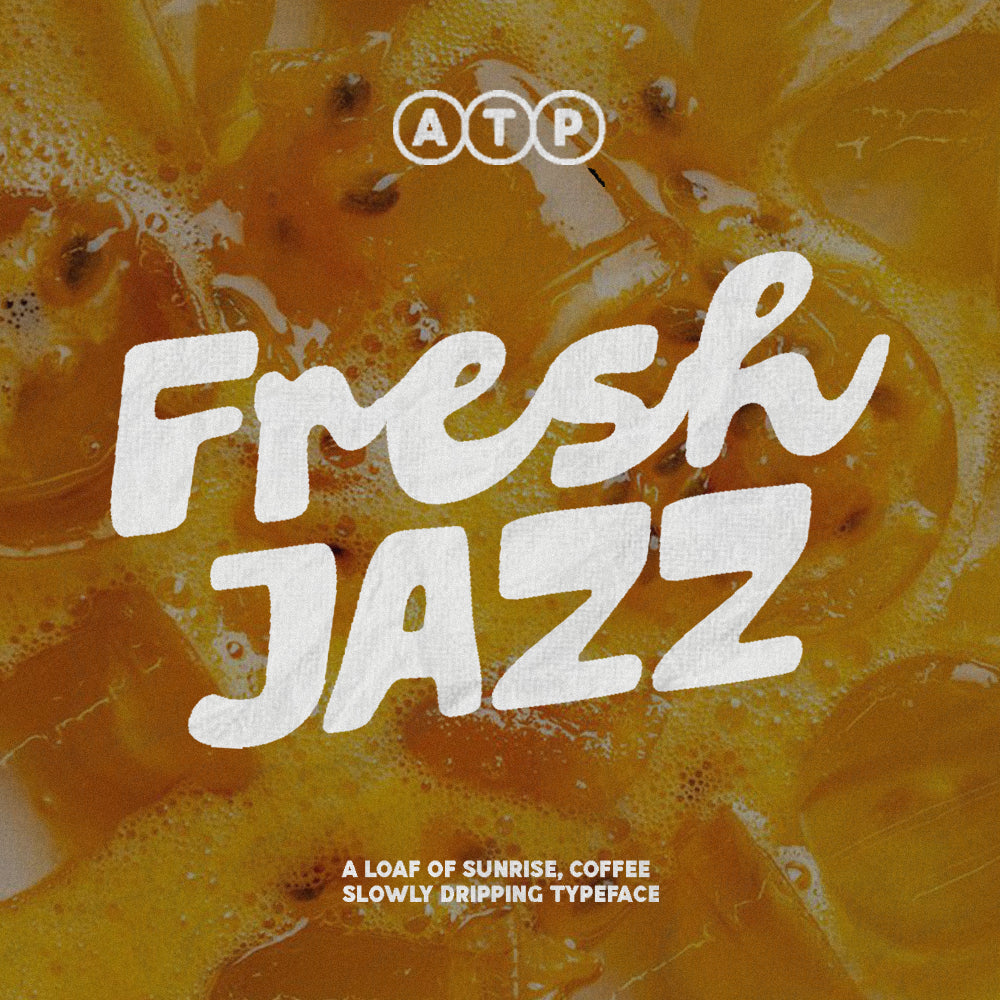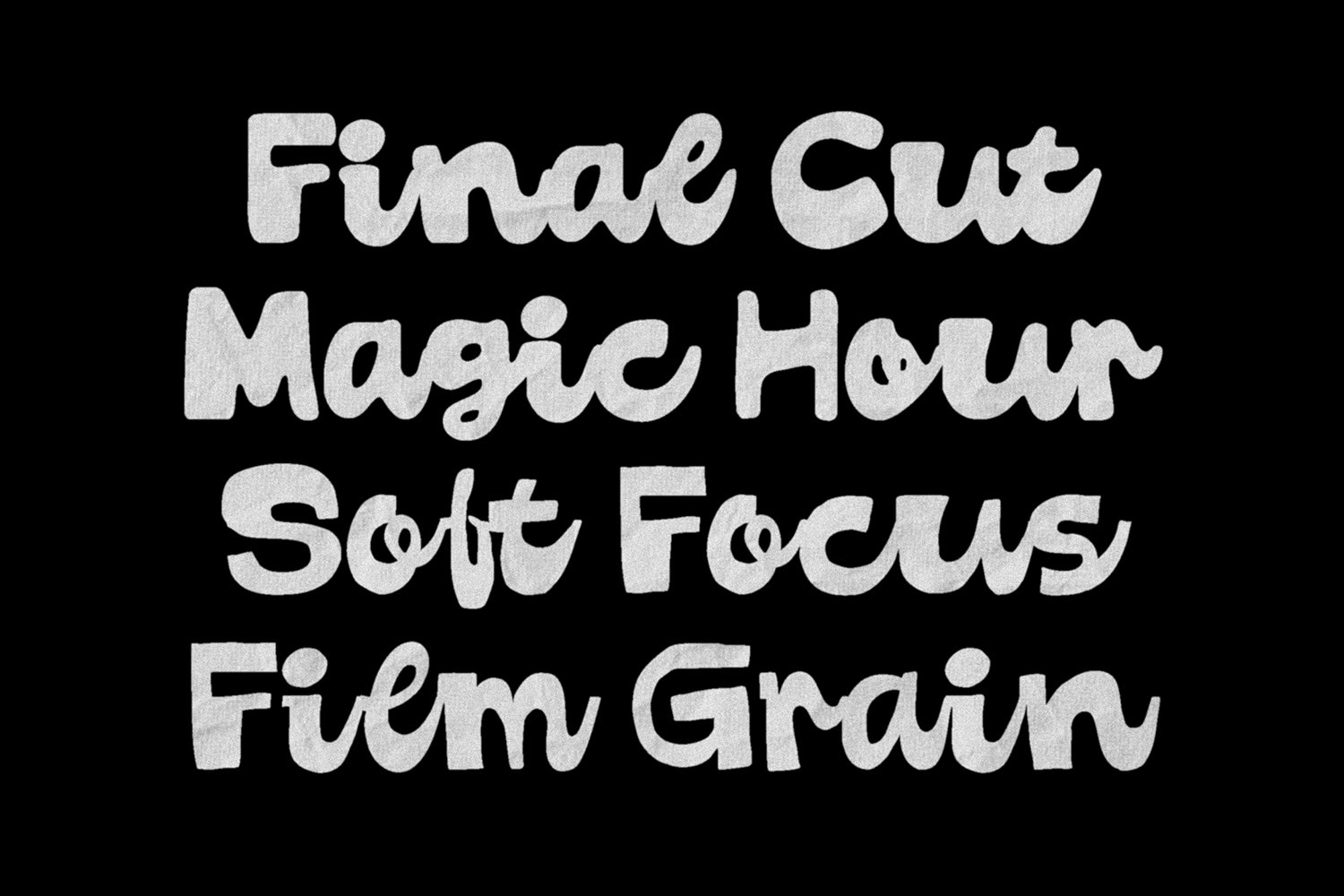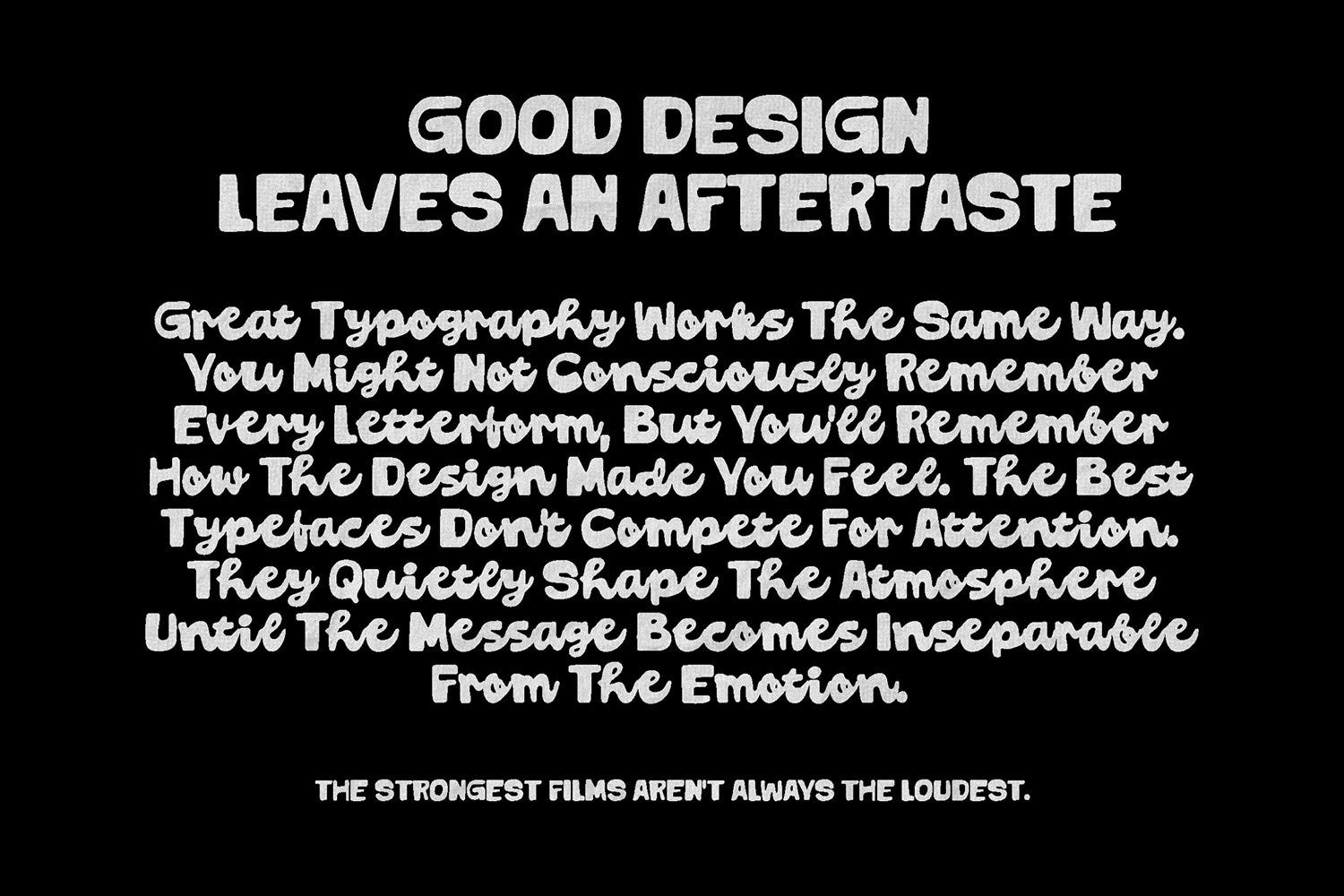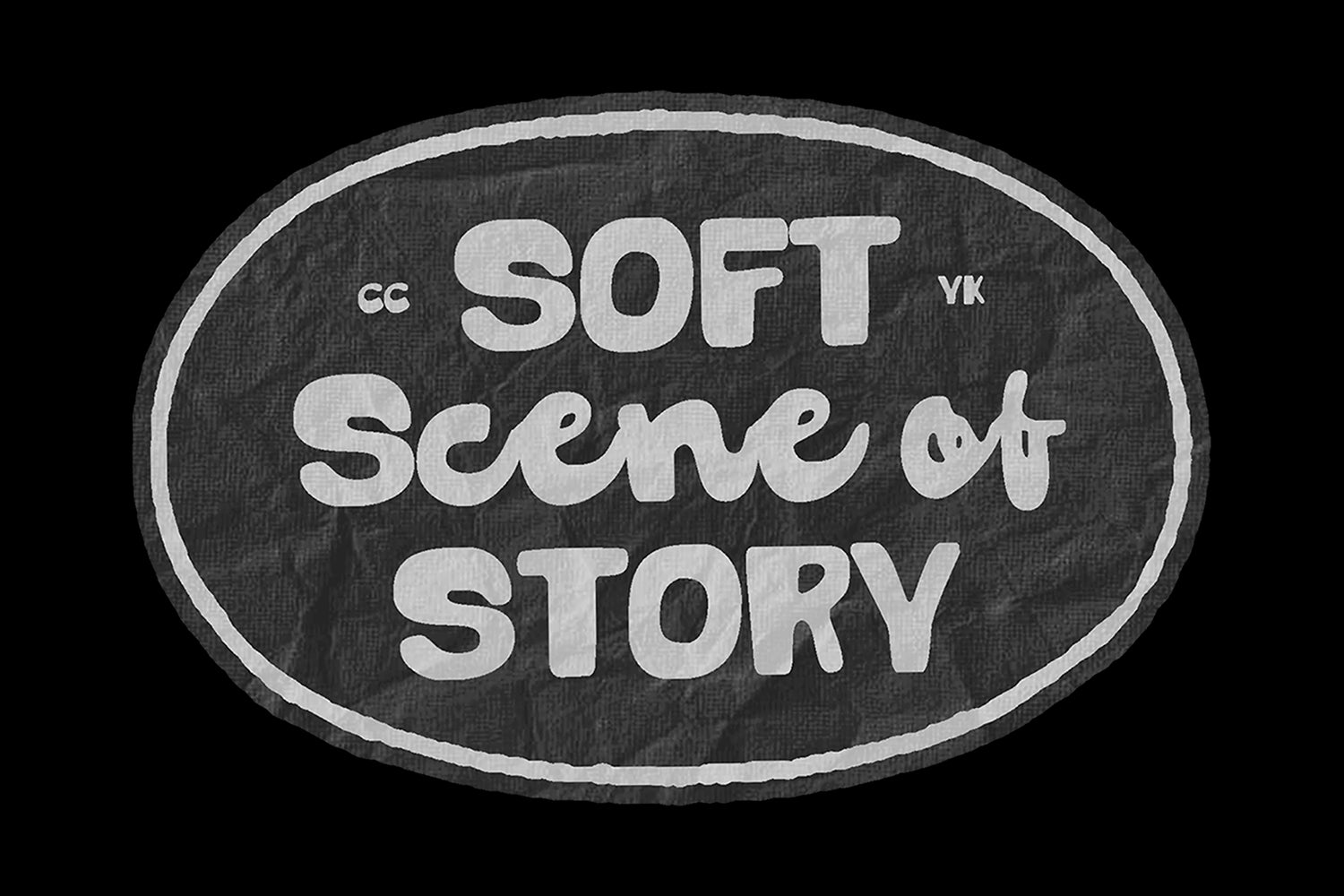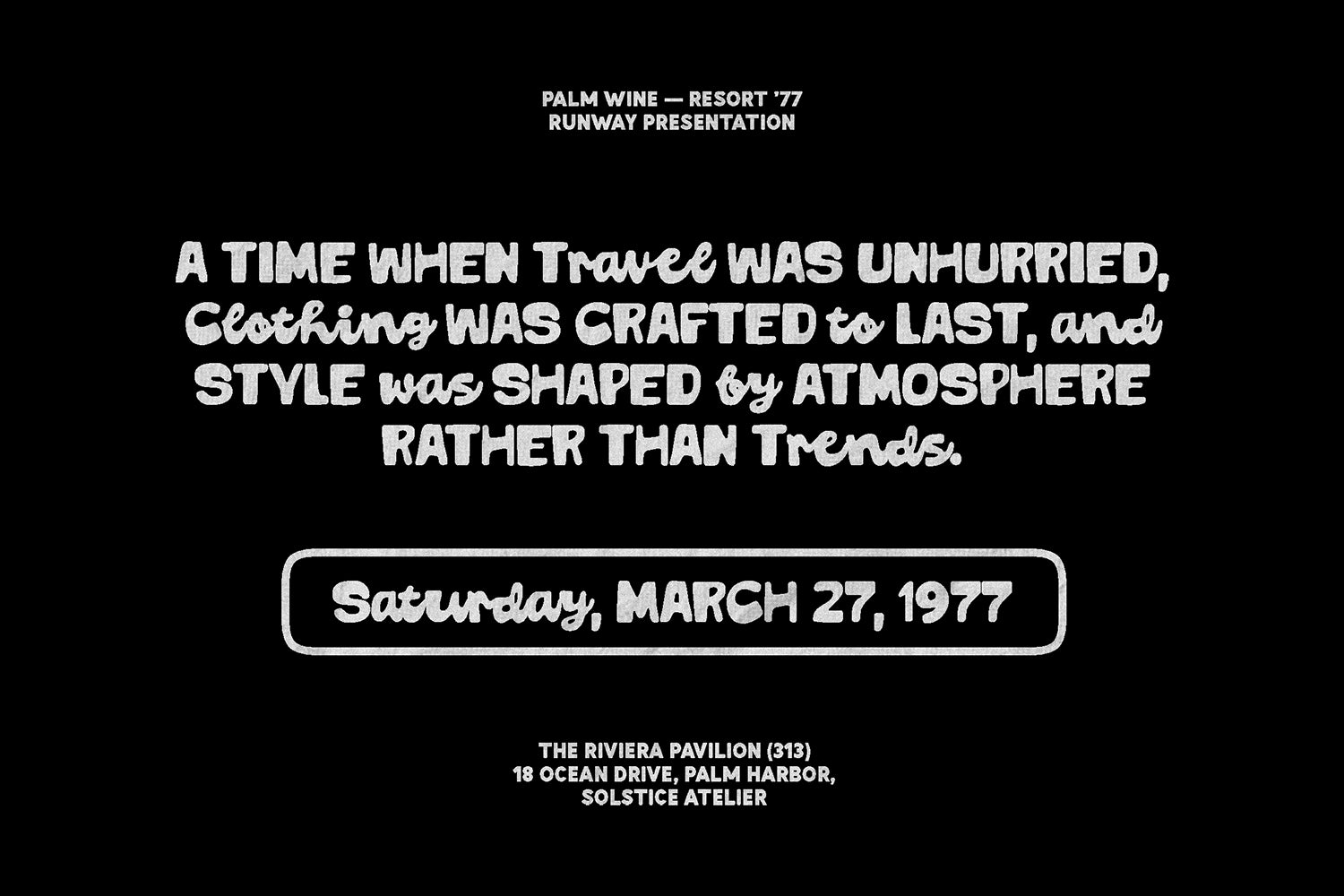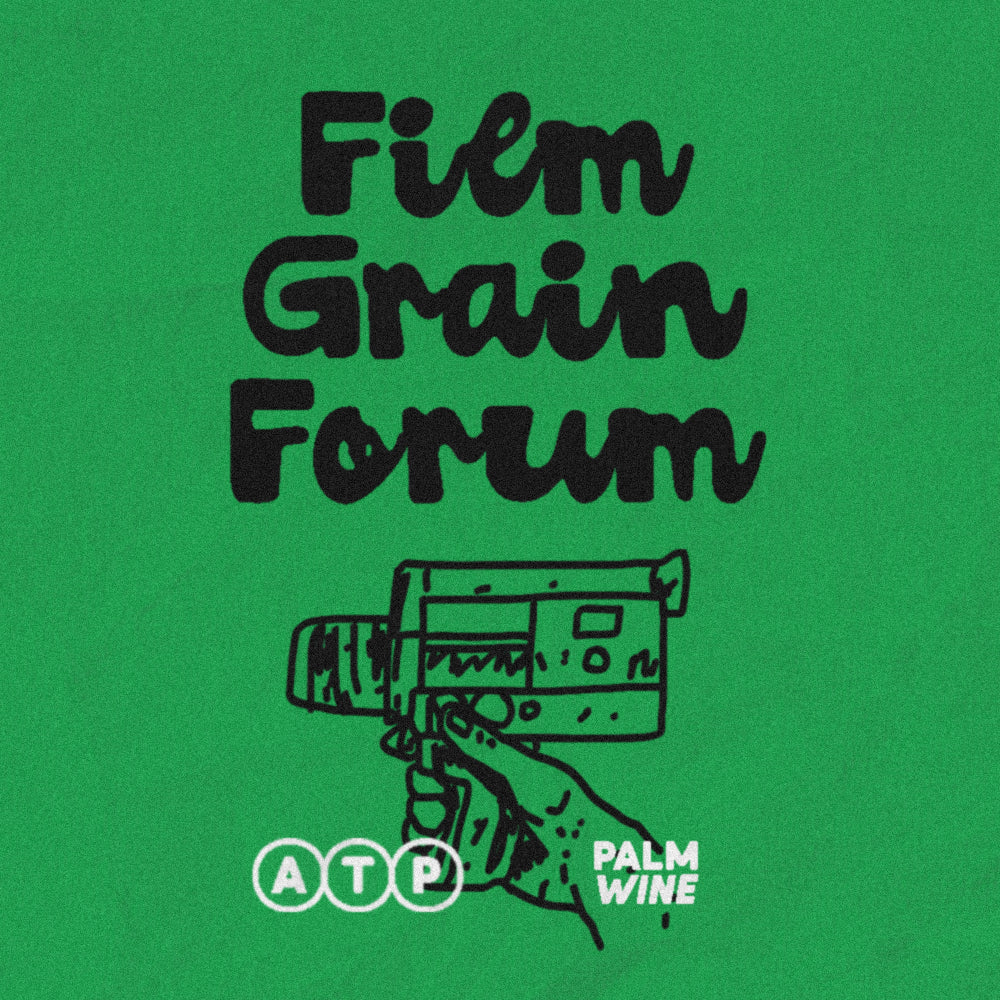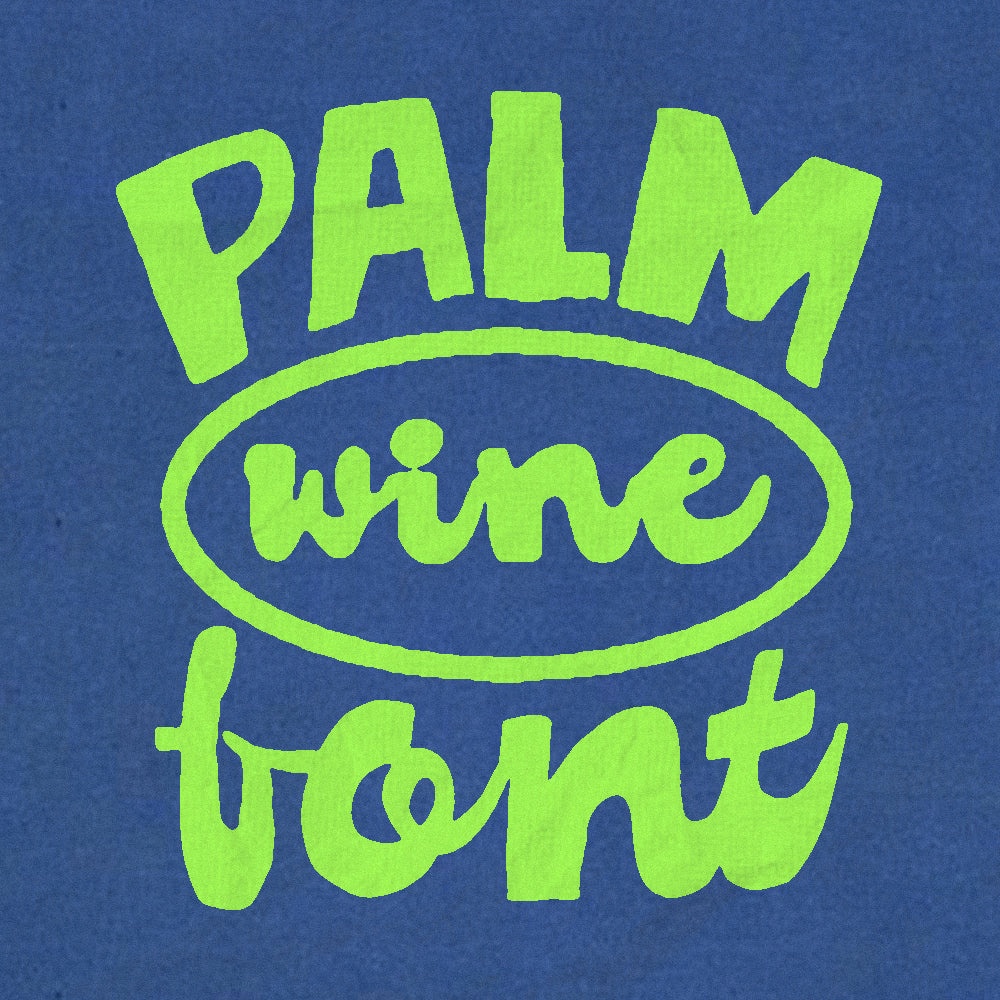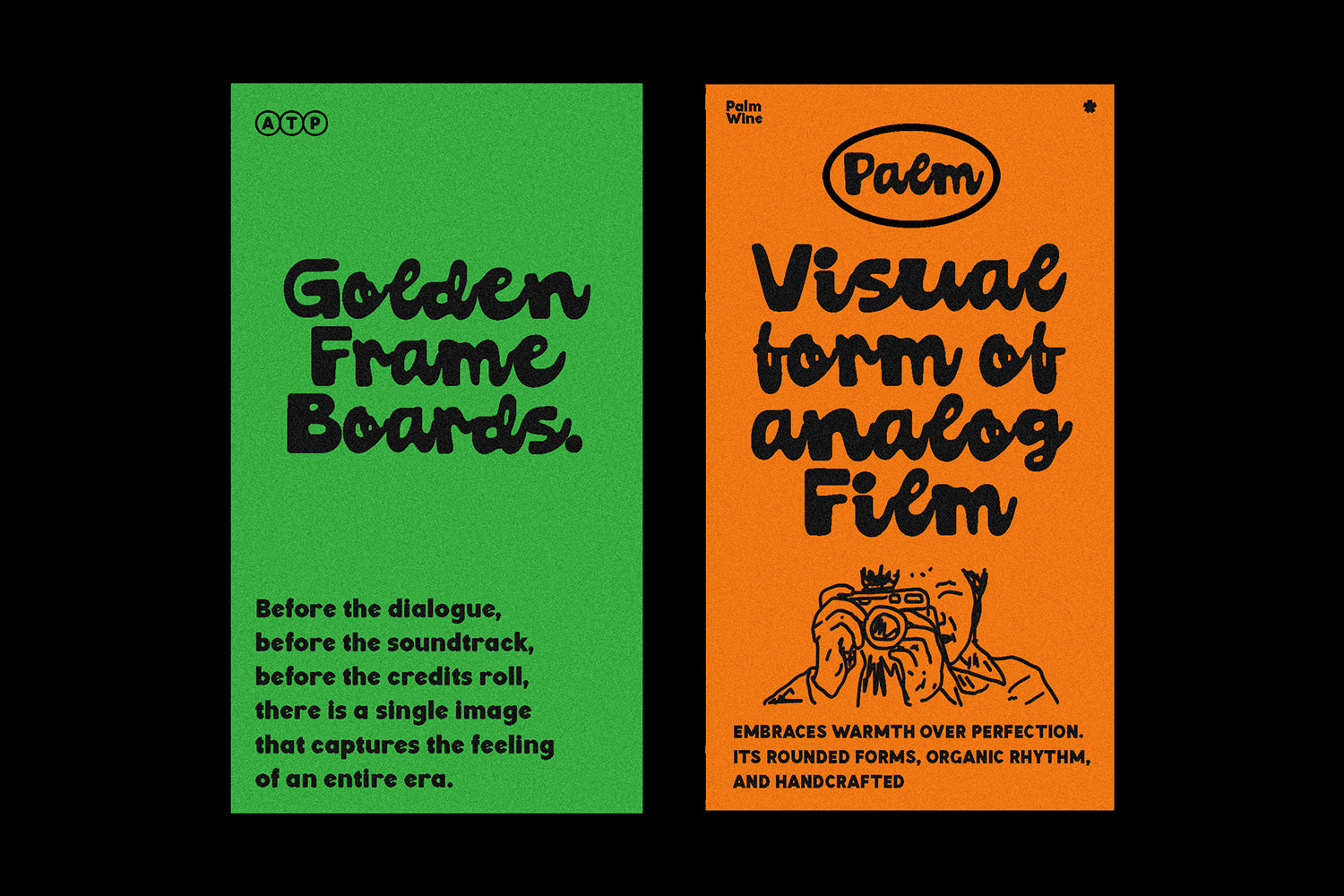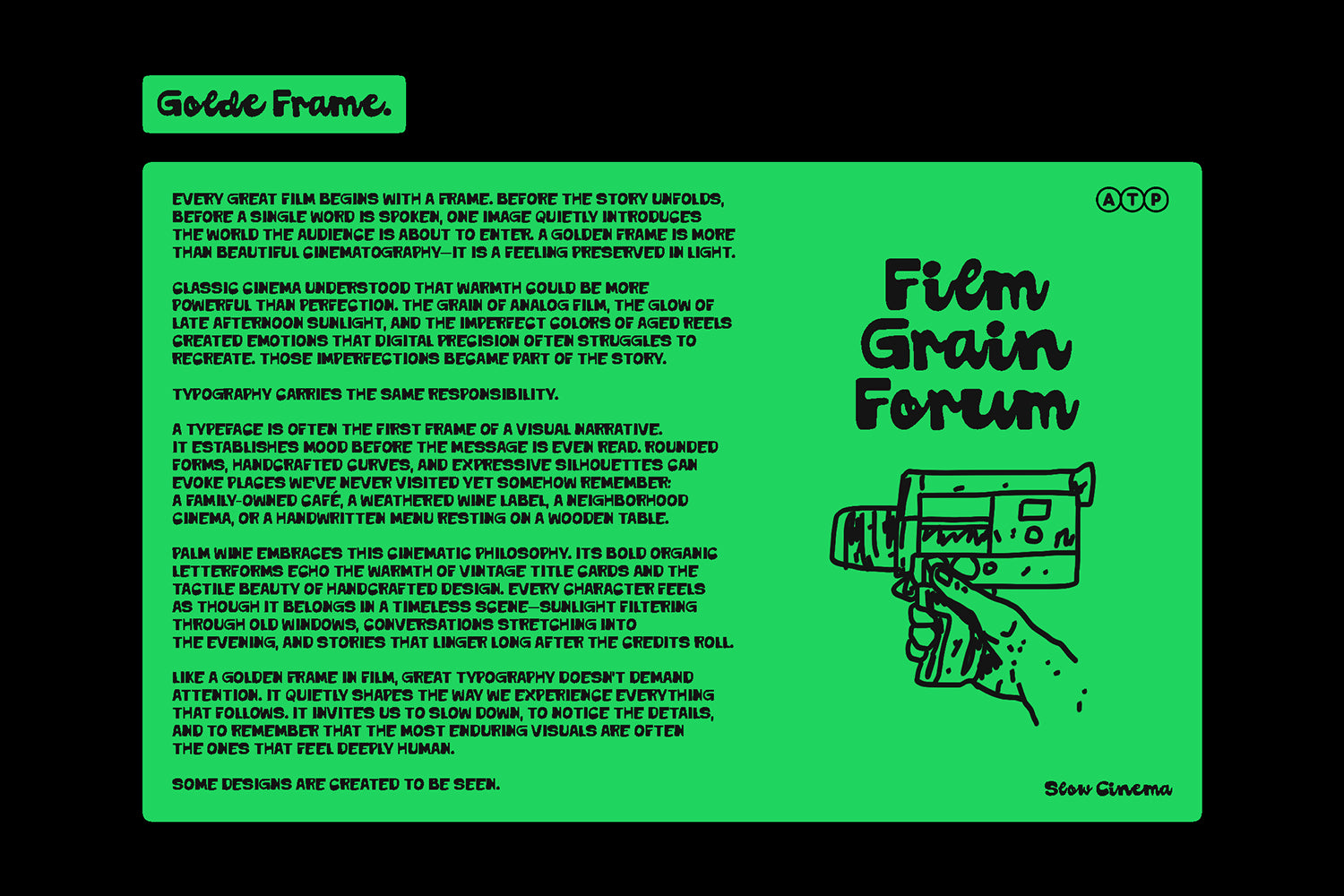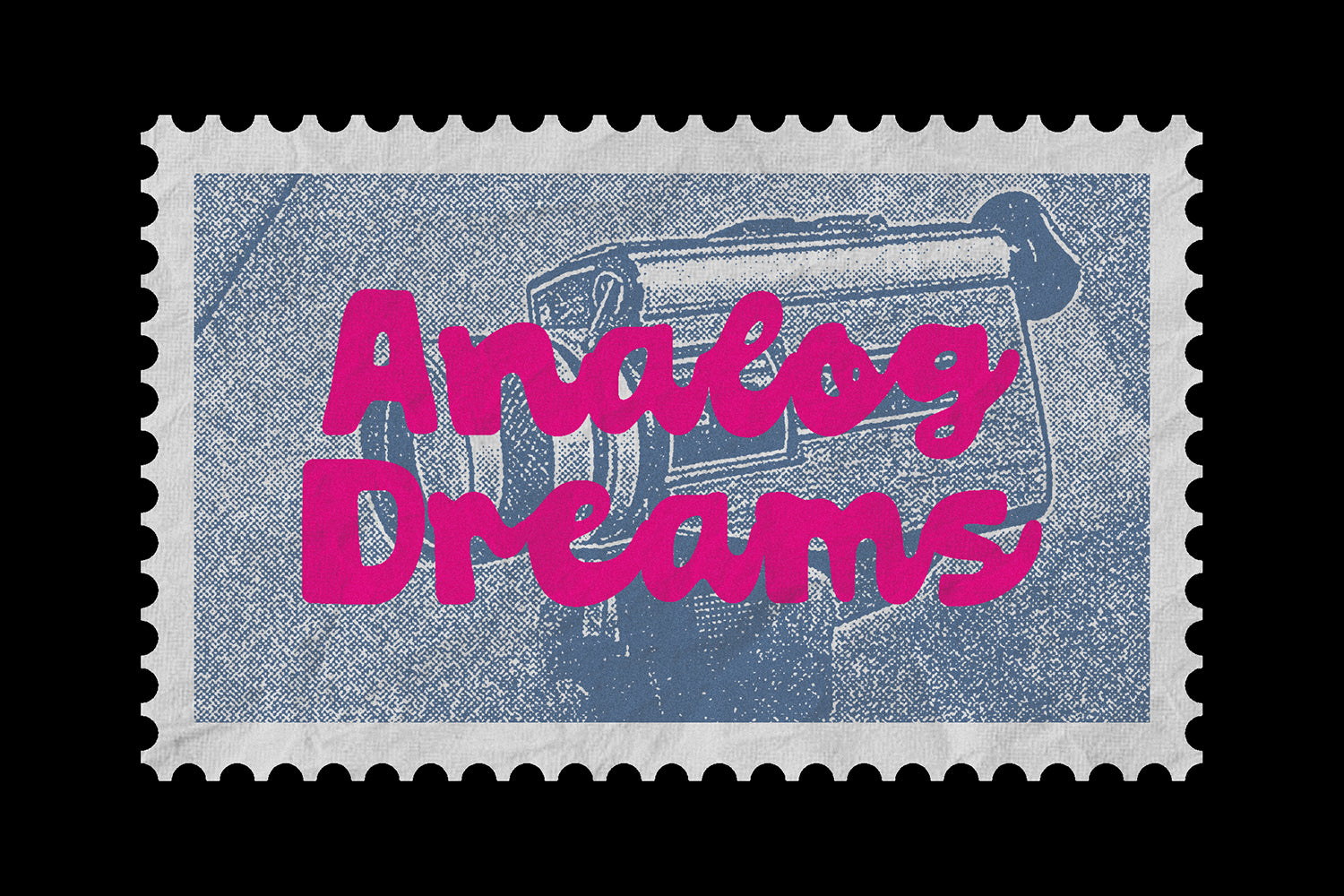
Palmwine - Bold Script Font
Palmwine is a bold display typeface that captures the easygoing rhythm of long afternoons, handmade signs, and sun-faded memories. Built with chunky proportions, rounded corners, and fluid curves, every character feels naturally crafted rather than mechanically drawn. The subtle irregularities give the typeface an authentic personality, making each word feel warm, expressive, and unmistakably human.
Inspired by the visual language of 1960s and 1970s packaging, tropical cafés, surf culture, vinyl records, and neighborhood storefronts, Palm Wine blends nostalgic charm with contemporary usability. Its sculptural forms are playful without sacrificing legibility, making it equally effective for large headlines, logos, packaging, and editorial compositions.
Palm Wine embraces imperfection as part of its identity. Thick strokes, soft terminals, and organic spacing create a relaxed visual rhythm that instantly attracts attention while maintaining a welcoming character. The result is a typeface that feels confident, approachable, and rich with personality.
• Uppercase
• Lowercase
• Numerics
• Punctuation
• Multilingual
Palmwine - Bold Script Font is a display typeface featuring chunky proportions, rounded corners, and fluid curves, designed with an authentic, handcrafted feel. It includes uppercase and lowercase letters, numerics, punctuation, and supports multilingual characters, available in formats (.otf, .ttf, .woff, .woff2).